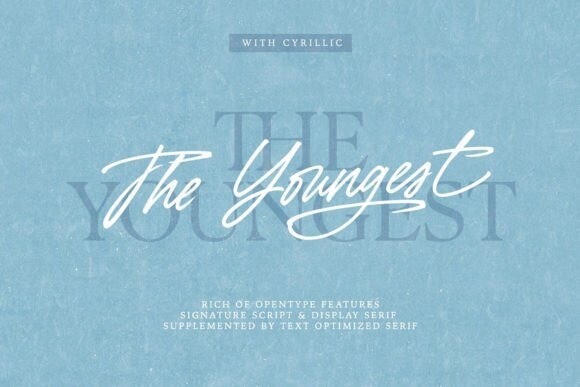
The Youngest Font
The Youngest is a unique modern font family that contains a handwritten signature script and a classic mid-contrast elegant classic serif, complimented by a text-optimized serif. Both serif and handwritten script benefit from stylistic alternates and ligatures that give your creativity a wide variety of design options.